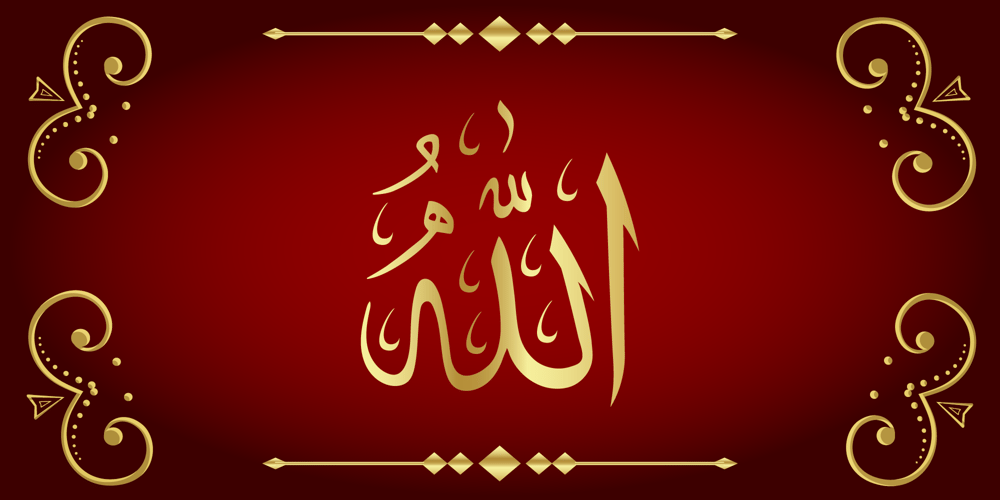
99 Names of ALLAH Random
99 Names of ALLAH Random font
99 Names of ALLAH Random Font Family was designed by Ibrahim Abdo and published by Islamic Calligraphy75. 99 Names of ALLAH Random contains 1 styles and family package options. We have transformed the “99 names of ALLAH” into a font. That means each key on your keyboard represents 1 of the 99 names of ALLAH Aaza Wajal. The fonts work with both the English and Arabic Keyboards.We call this Calligraphy “Random” because we don’t follow any one principle to write the names, some overlap some don’t, some letters are big and some are small. All the letters, harakat, decorative letters and symbols may differ from one name to another.(in the zip file you will find a pdf file explaining the differences in the “harakat”, pronunciation and spelling according to the Holy Quran). Decorative symbols are at a minimum. Decorative letters used in this calligraphy: “Mim, Aain, Sin, HHe, He, Kaf”.Purpose & use:- Writers: Highlight the names in your texts in beautiful Islamic calligraphy.- Editors: Use with kinetic typography templates (AE) & editing software. – Designers: The very small details in the names does not affect the quality. Rest assured it is flawless.The MOST IMPORTANT THING about this list is that all the names are 100% ERROR FREE, and you can USE THEM WITH YOUR EYES CLOSED. All the “Tachkilat” are 100% ERROR FREE, all the “Spelling” is 100% ERROR FREE, and they all have been written in accordance with the Holy Quran. No names are missing and no names are duplicated. The list is complete “99 names +1”. The +1 is the name “ALLAH” ‘Aza wajal.Another important thing is how we use the decorative letters. In every font you will see small decorative letters, these letters are used only in accordance with their respective letters to indicate pronunciation & we don’t include them randomly. That means “mim” on top or below the letter “mim”, “sin” on top or below the letter “sin”, and so on and so forth.Included:Pdf file telling you which key is associated with which name.In that same file we have included the transliteration and explication of all 99 names.Pdf file explaining the differences in the harakat and pronunciation according to the Holy Quran.Here is a link to all the extra files you will need:https://drive.google.com/drive/folders/1Xj2Q8hhmfKD7stY6RILhKPiPfePpI9U4?usp=sharing